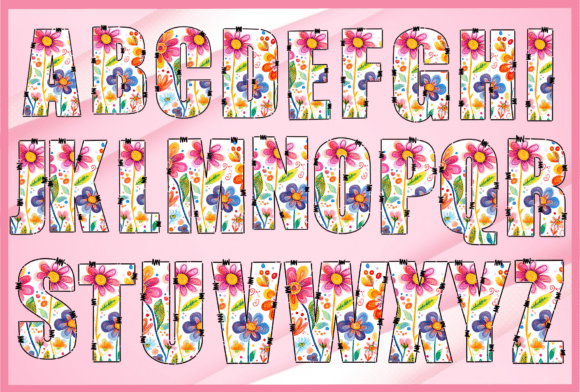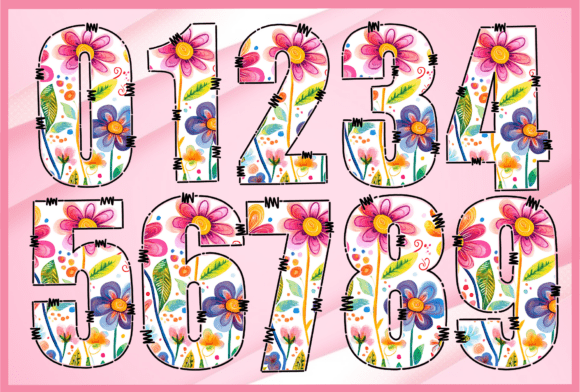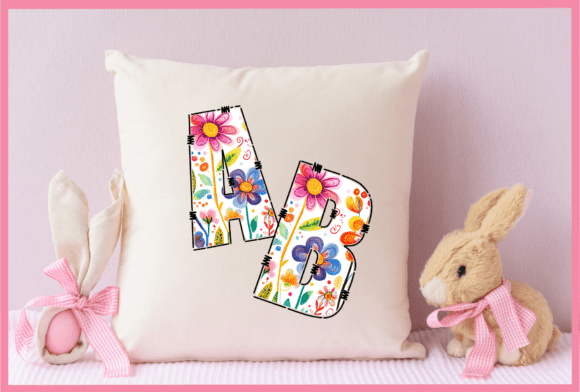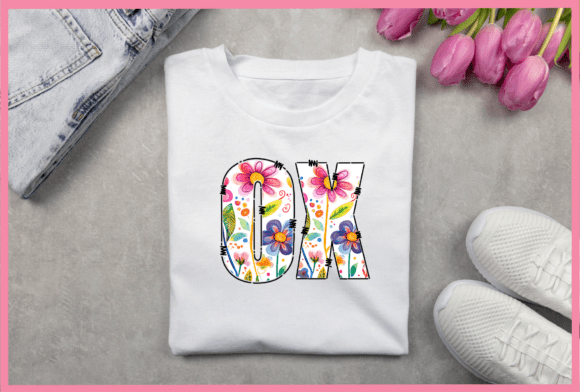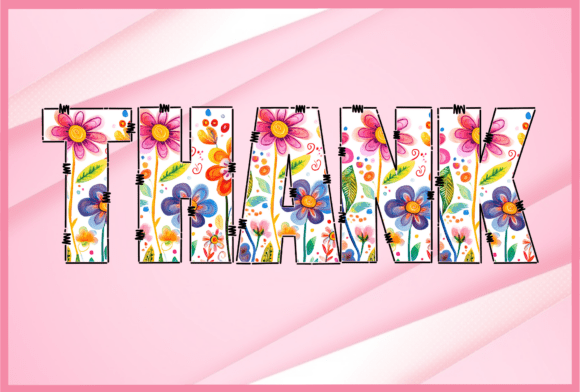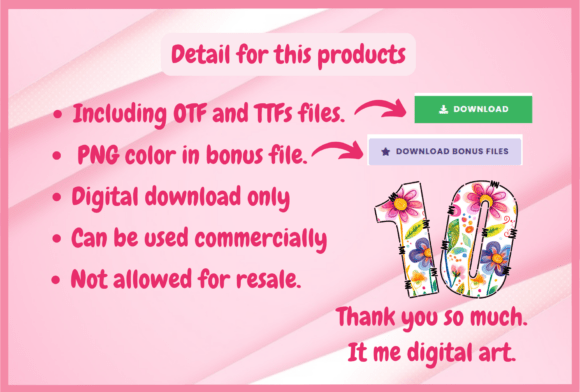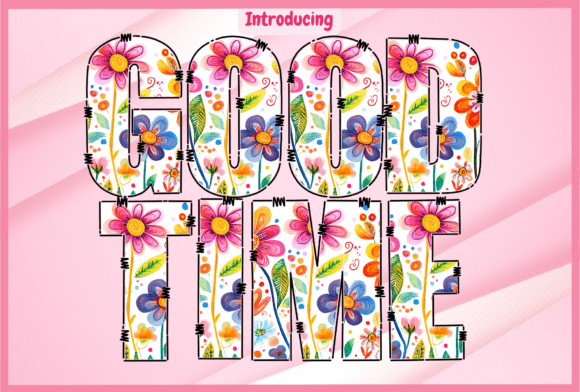
Introducing Good Time Font: The Ultimate Decorative Font for Vibrant Designs
Are you tired of using the same old fonts for your designs? Do you want to add a touch of personality and whimsy to your projects? Look no further than Good Time Font, a bold and cheerful decorative font that’s perfect for creating standout headlines, posters, apparel designs, and seasonal projects.
What Makes Good Time Font So Special?
Good Time Font is a unique and eye-catching font that’s filled with colorful floral patterns and outlined in playful sketch-style borders. This decorative font is designed to add a vibrant, hand-crafted flair to your designs, making it perfect for projects that need a bit of extra personality. Whether you’re a designer, crafter, or DIY enthusiast, Good Time Font is sure to inspire your creativity and take your designs to the next level.
Key Features of Good Time Font
- Bold and Cheerful Design: Good Time Font features a bold and cheerful design that’s sure to grab attention. Its colorful floral patterns and playful borders make it perfect for creating fun and lively designs.
- Decorative Floral Patterns: The font is filled with beautiful floral patterns that add a touch of elegance and sophistication to your designs.
- Playful Sketch-Style Borders: The font’s playful borders are designed to add a bit of whimsy and playfulness to your designs.
- Perfect for Standout Headlines: Good Time Font is perfect for creating standout headlines that grab attention and make a statement.
- Ideal for Creative Posters: The font’s bold and cheerful design makes it ideal for creating creative posters that showcase your personality and style.
- Great for Fun Apparel Designs: Good Time Font is perfect for creating fun and playful apparel designs that are sure to stand out.
- Suitable for Seasonal Projects: The font’s vibrant and hand-crafted design makes it suitable for seasonal projects, such as holiday cards, invitations, and decorations.
How to Use Good Time Font
Good Time Font is easy to use and can be incorporated into a variety of design projects. Here are a few ideas to get you started:
- Create a Standout Headline: Use Good Time Font to create a bold and eye-catching headline that grabs attention and makes a statement.
- Design a Creative Poster: Use the font to create a creative poster that showcases your personality and style.
- Make a Fun Apparel Design: Use Good Time Font to create a fun and playful apparel design that’s sure to stand out.
- Add a Personal Touch to Your Seasonal Projects: Use the font to add a personal touch to your seasonal projects, such as holiday cards, invitations, and decorations.
Why Designers and Crafters Love Good Time Font
Good Time Font is a favorite among designers and crafters for several reasons:
- Unique and Eye-Catching Design: The font’s unique and eye-catching design makes it perfect for creating designs that stand out from the crowd.
- Easy to Use: Good Time Font is easy to use and can be incorporated into a variety of design projects.
- Versatile: The font is versatile and can be used for a range of design projects, from posters and headlines to apparel designs and seasonal projects.
- High-Quality Design: Good Time Font is a high-quality design that’s perfect for professional designers and crafters.
Good Time Font is a bold and cheerful decorative font that’s perfect for creating standout designs. With its colorful floral patterns and playful borders, this font is sure to add a touch of personality and whimsy to your projects. Whether you’re a designer, crafter, or DIY enthusiast, Good Time Font is a must-have font that’s sure to inspire your creativity and take your designs to the next level.